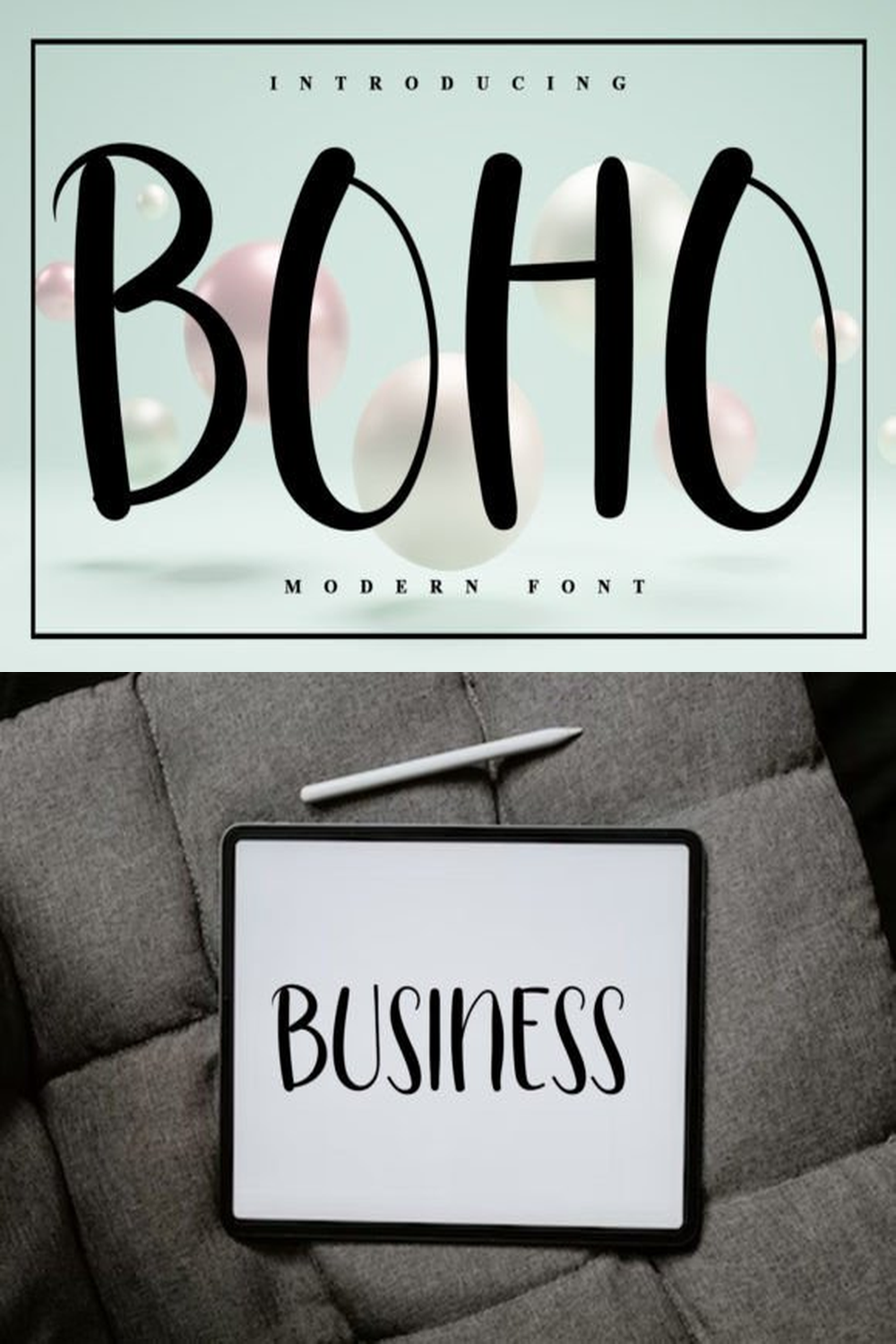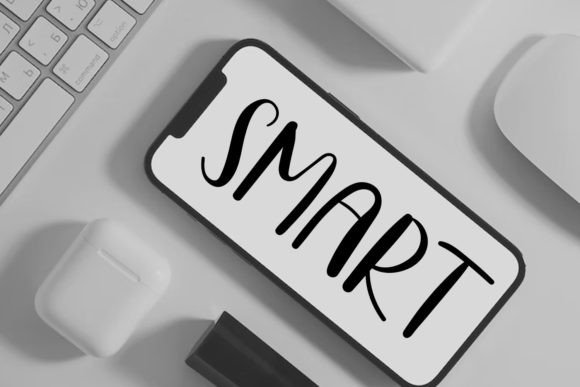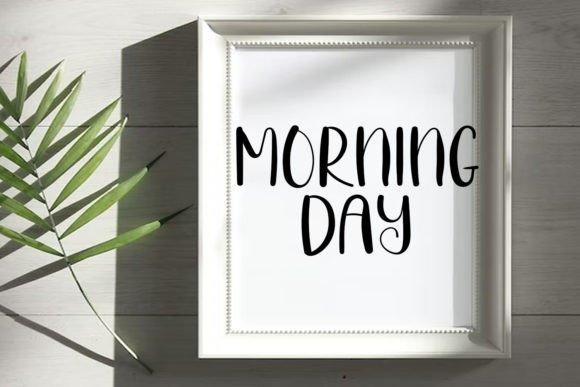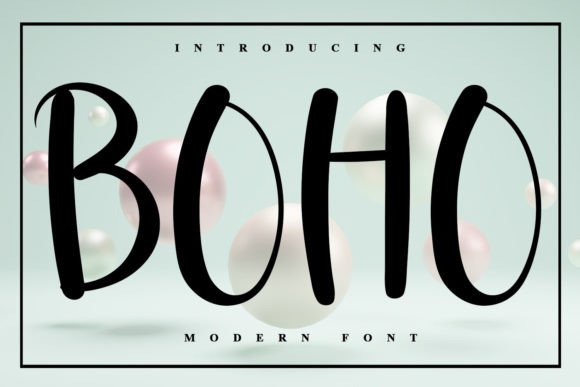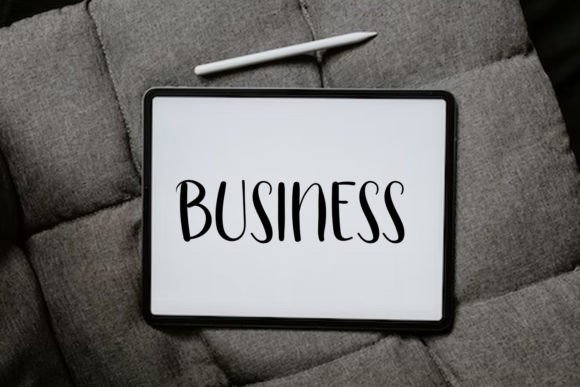
About the Boho Font
Welcome to the world of Boho Font, a typeface that will inspire your next great project. Boho is a fresh and cool handwritten font. Fall in love with it and bring your projects to the highest levels!